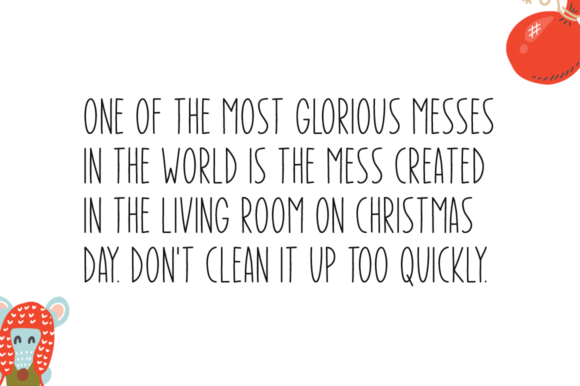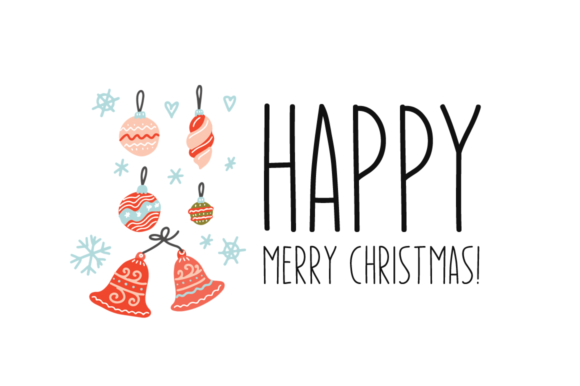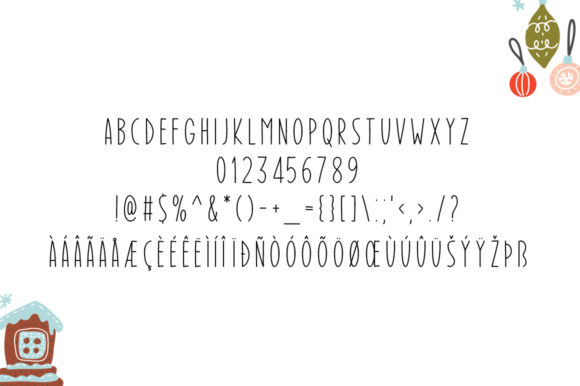
About Enjoy Christmas Font
Enjoy Christmas is a cute and simple lettered handwritten font that can be used for all chalkboard quotes or teaching material! Its authentic look will add a personal and realistic feel to your designs.